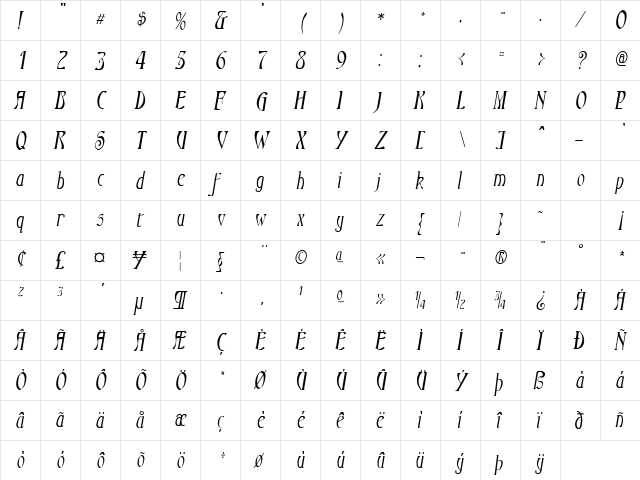
Ambrosia Italic
Design Context for Ambrosia Typeface
Ambrosia offers clean, dependable letterforms without strong stylistic allegiance, making it a practical choice for designers who need flexibility. The slanted form adds forward momentum and visual energy.
Pro Tip: Use Ambrosia for emphasis, pull quotes, and subheadings where its slanted energy can add rhythm to the layout.